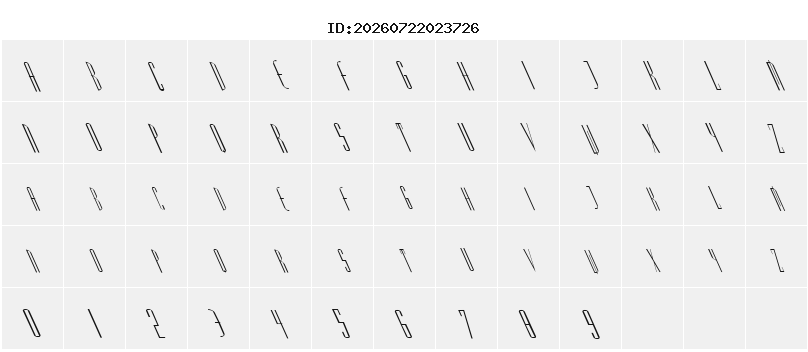
FZ BASIC 38 LEFTY Preview
• Font Name: FZ BASIC 38 LEFTY
About FZ BASIC 38 LEFTY.ttf
FZ BASIC 38 LEFTY.ttf is a modern, elegant sans-serif font designed for ultimate readability and visual harmony. Perfect for branding, headlines, web design, and print materials.